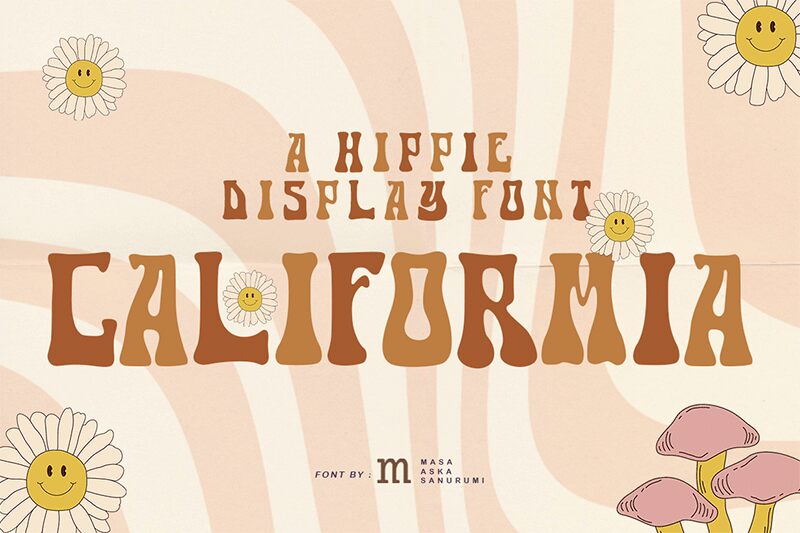
Califormia font by Masa Aska Sanurumi is a groovy free font that blends nostalgic 1960s charm with a playful, whimsical touch. Designed as a decorative, expressive typeface, Califormia is influenced by retro aesthetics, complete with bohemian and quirky stylings that make it perfect for adding a vintage vibe to your work.
Explore endless creative opportunities with Califormia font, particularly in signage, apparel designs, packaging, branding, and invitations. It is equally great for books, posters, social media content, greeting cards, and other editorial or advertising projects.